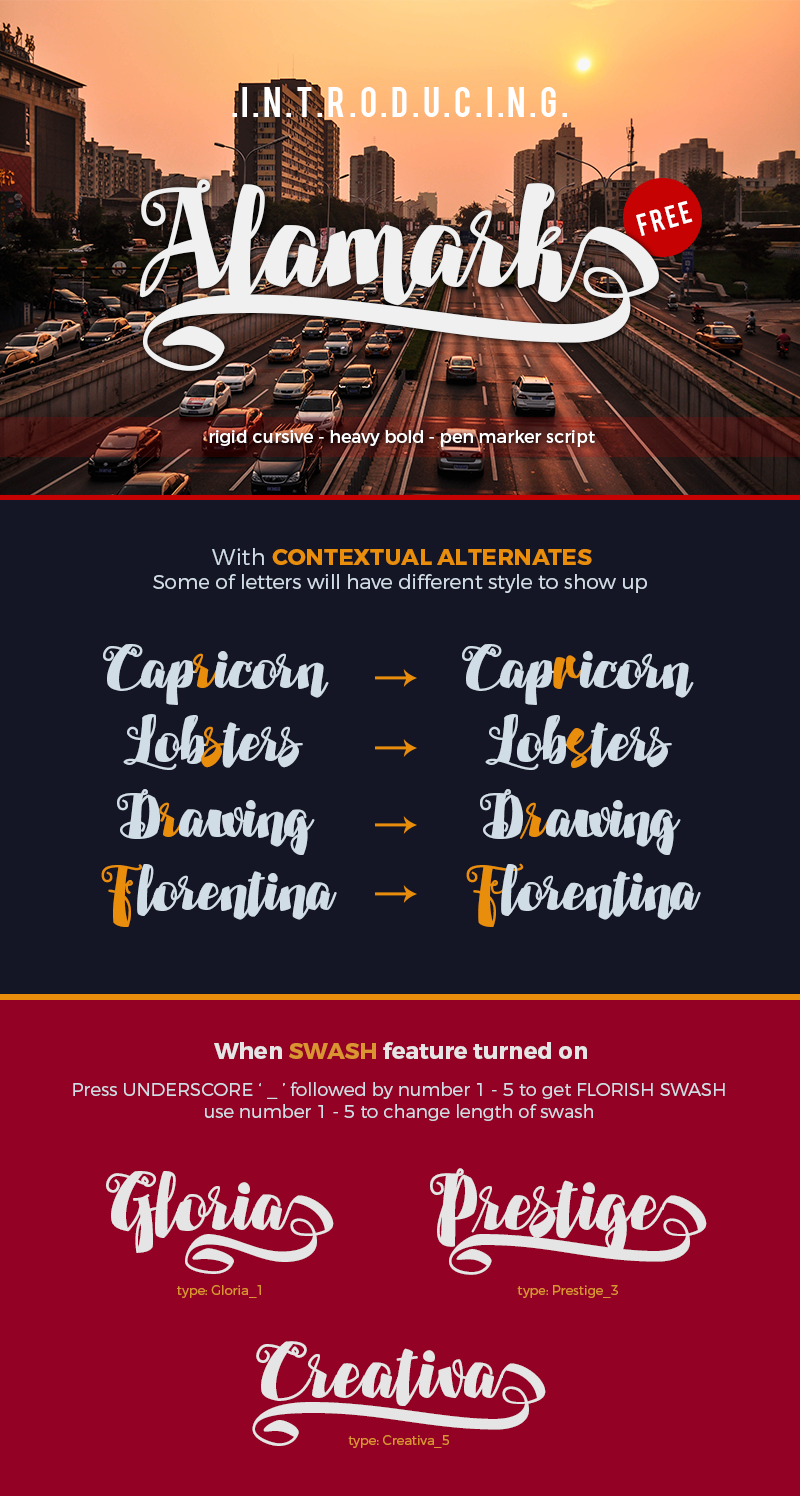
Alamark is a cursive Font looks Made by pen Marker. Its so rigged cursive, heavy bold looking. Alamark good for display like titling, watermark or logotype. This version is free for personal and non-commercial use. For commercial usage please visit me on Behance https://www.behance.net/walkeren Regards, Didi Syarif |